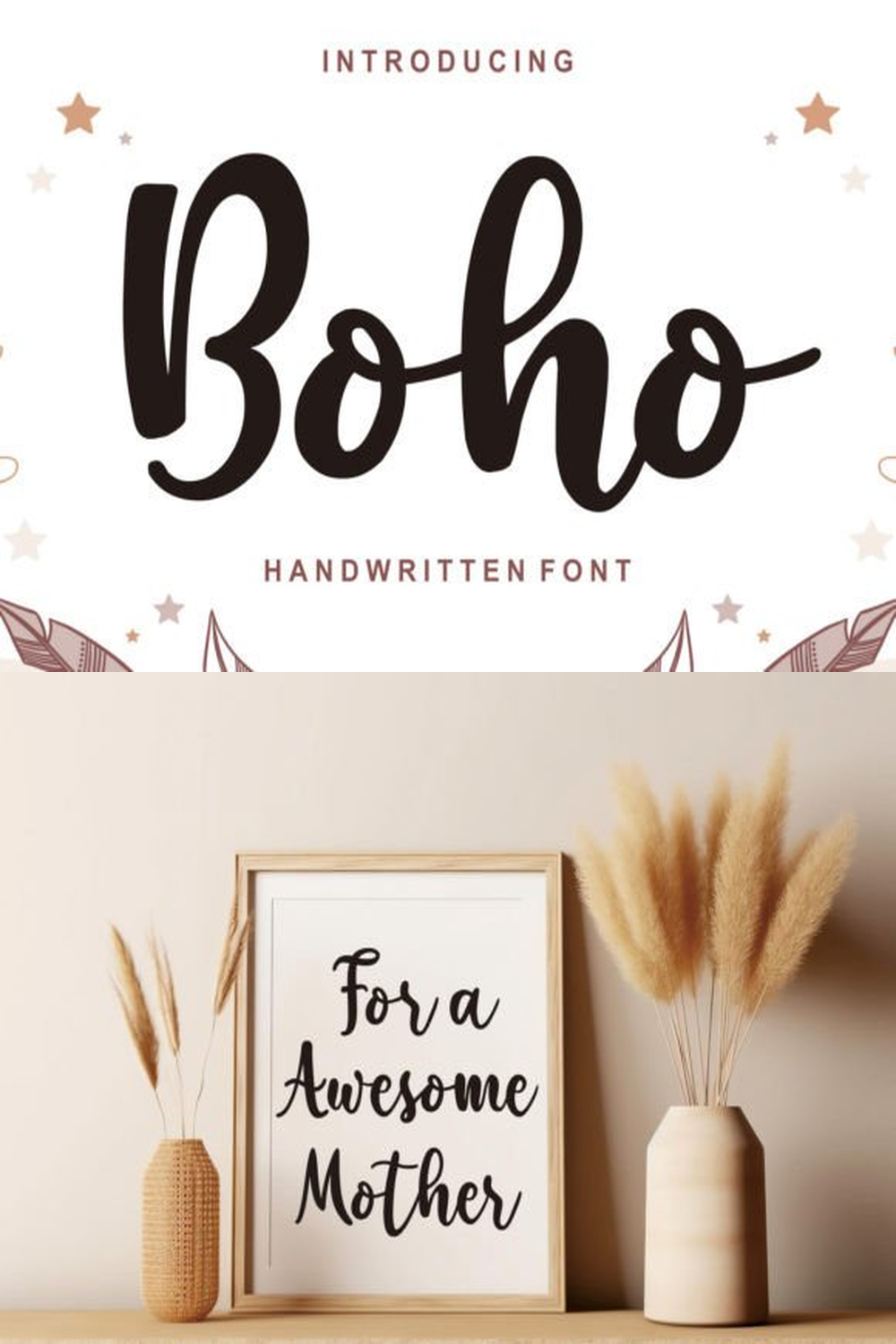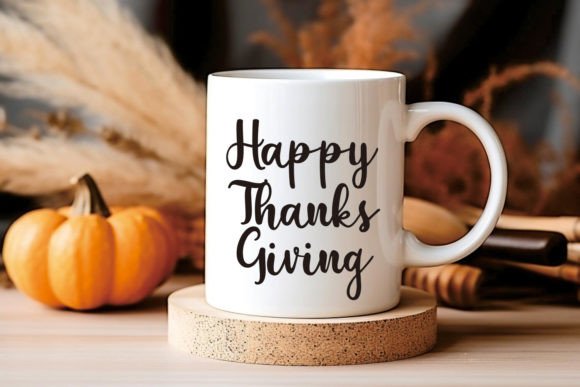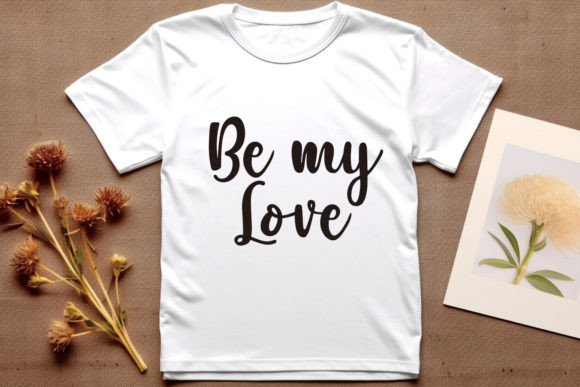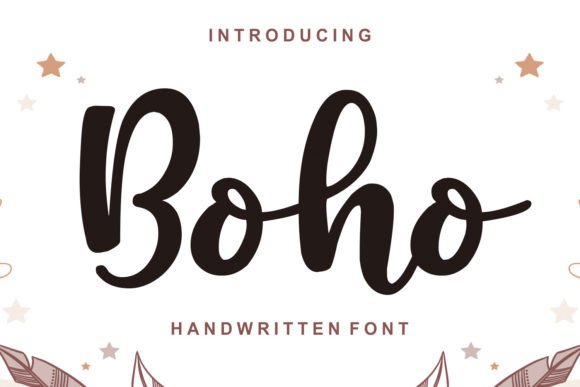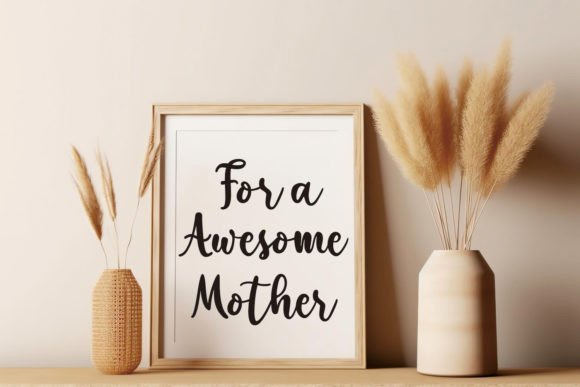
About the Boho Font
Step up your design game with Boho Font, a font that exudes confidence and style. Introducing Boho font – a captivating blend of script handwriting with a whimsical touch, perfect for infusing your projects with the spirit of Easter, Cricut crafts, embroidery endeavors, Thanksgiving festivities, and the cozy warmth of Christmas. Each character in this font is adorned with beginning and ending washes, lending an artistic flair to your designs. Whether you’re crafting personalized greetings, adding a touch of charm to your holiday decorations, or embarking on a lettering adventure, Boho font is your versatile companion, ready to elevate your creative endeavors to new heights.